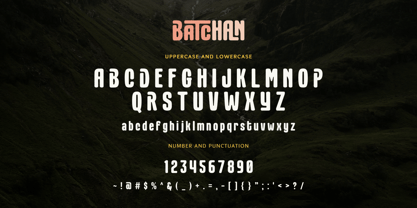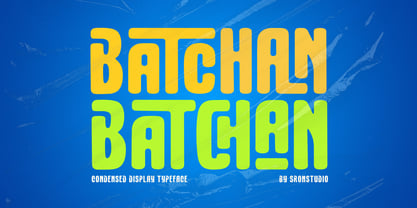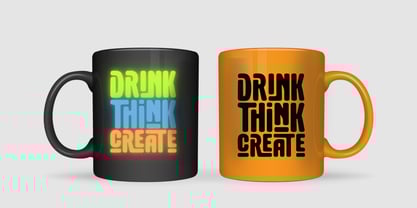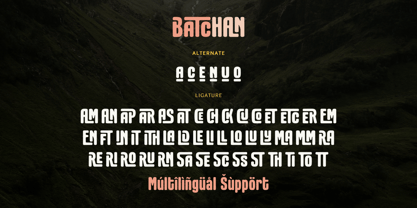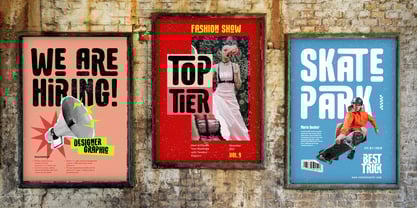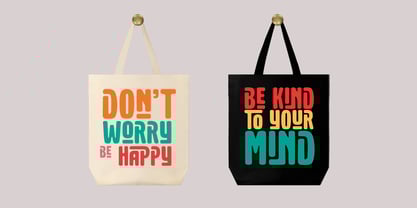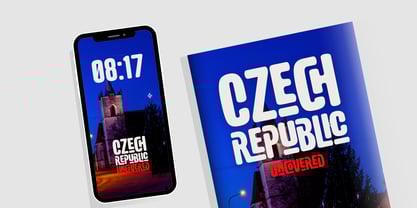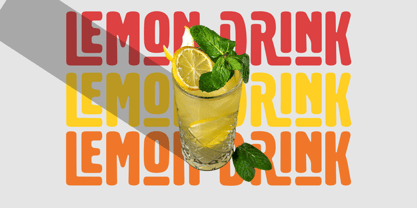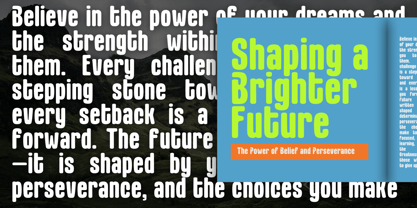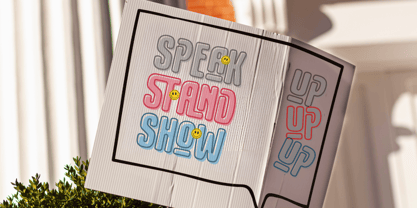
Batchan
by Sronstudio
The Batchan Font Family was designed by Muhamad Yusron Billah and published by Sronstudio. Batchan contains 1 styles. More about this family
Batchan is a stylish and bold display font featuring unique uppercase ligatures that bring a distinctive and modern touch to your designs. With its eye-catching letter combinations, Batchan is perfect for branding, logos, posters, packaging, and any project that demands a striking visual impact. This font blends creativity and elegance, making your typography stand out effortlessly.
- Unique uppercase ligatures
- Numerals & punctuation
- Multilingual support